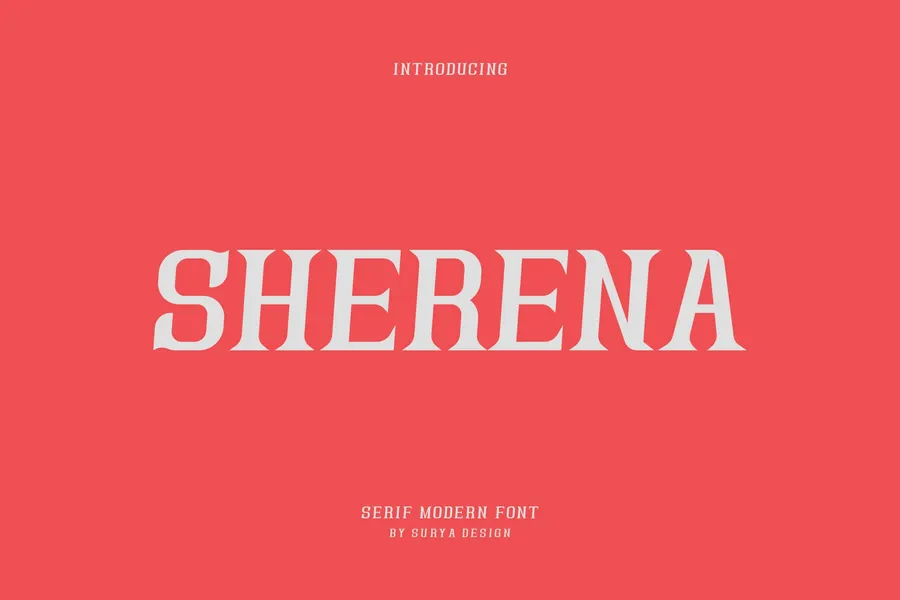
Sherena – Serif Modern Font
Introducing our new product Sherena Font – Modern Font
Sherena Font- Modern Font is a bold and authentic display font. The font is suitable for any branding project like logo, esport, and many more. outstanding in a wide range of contexts.